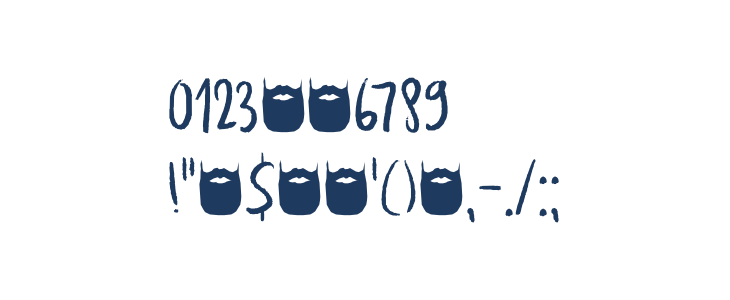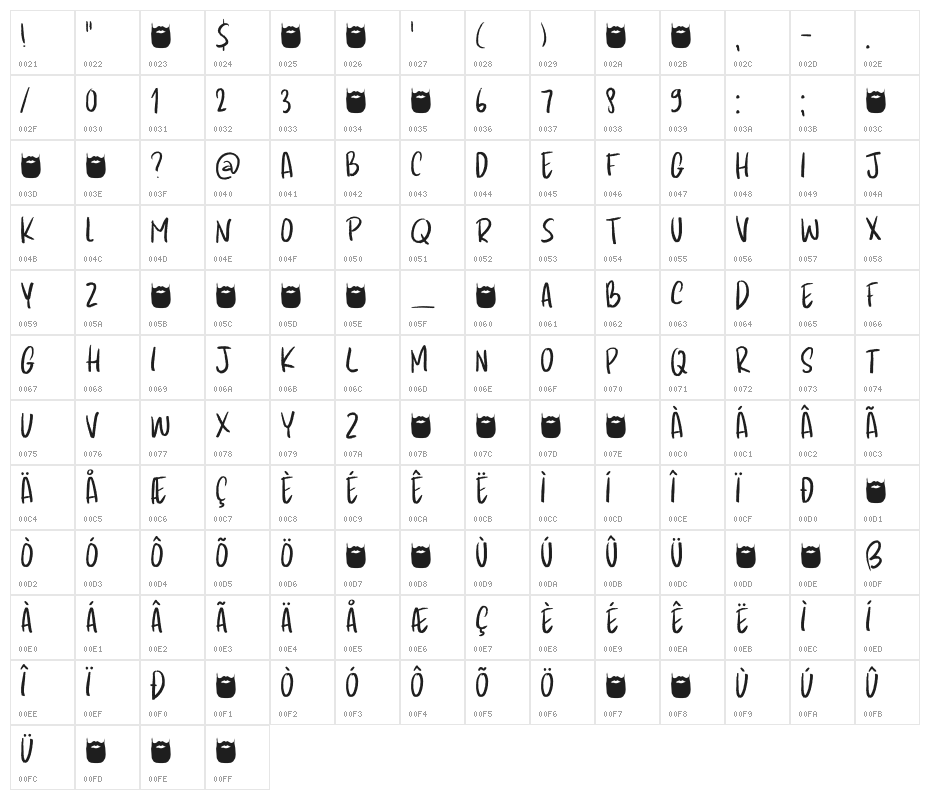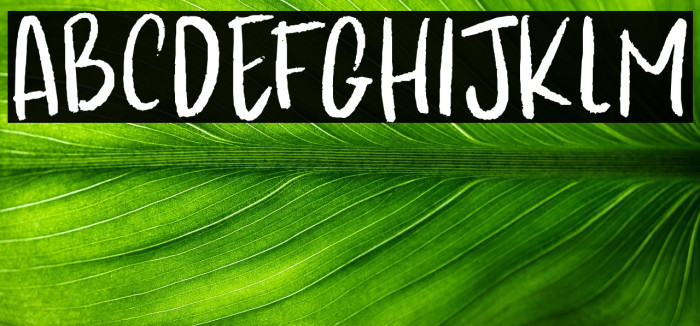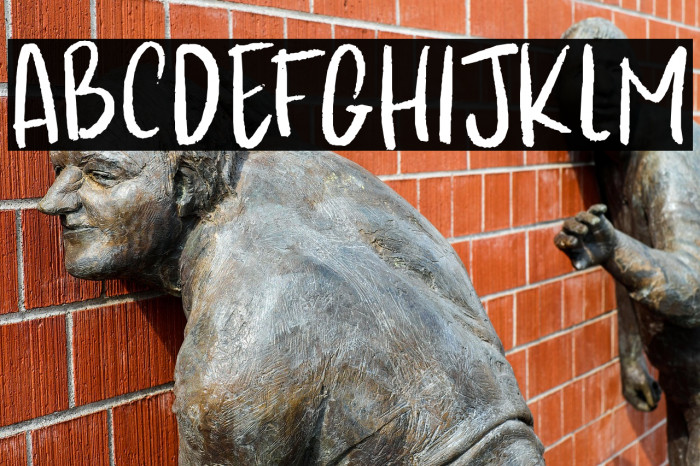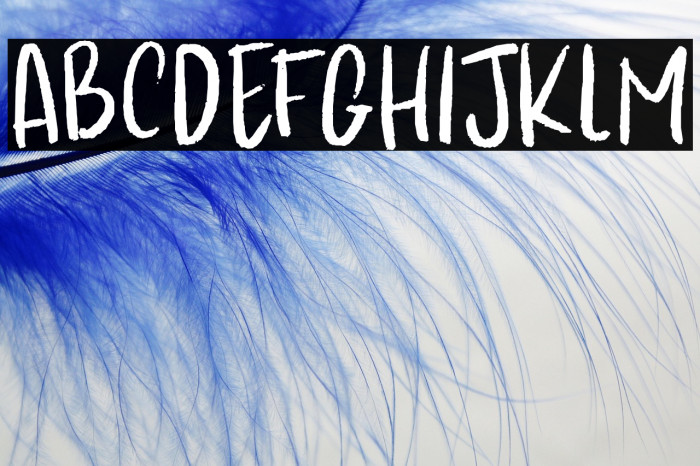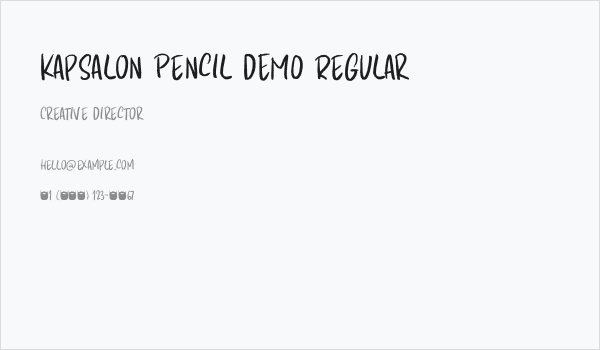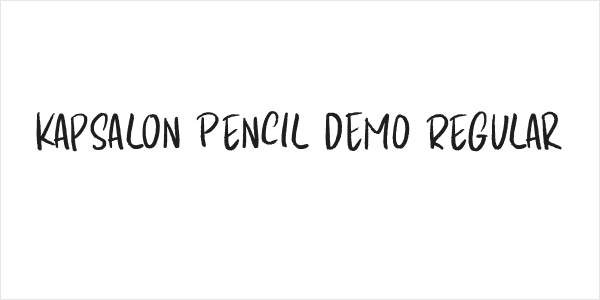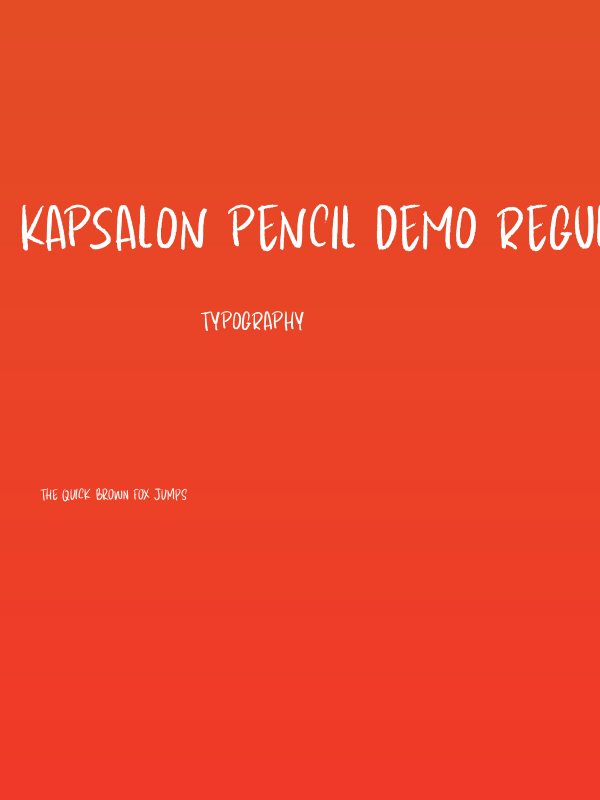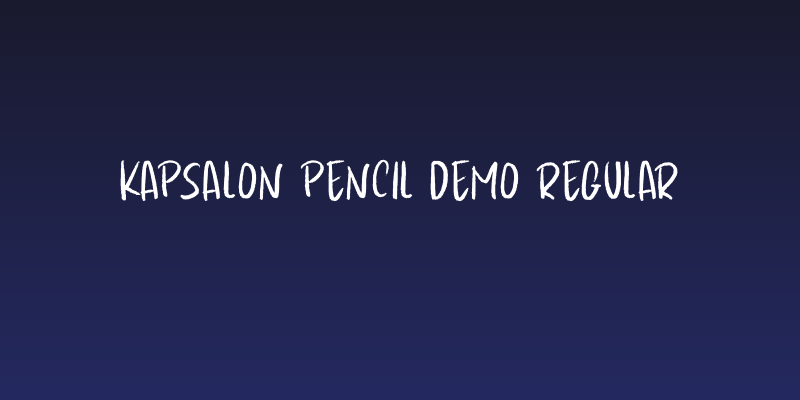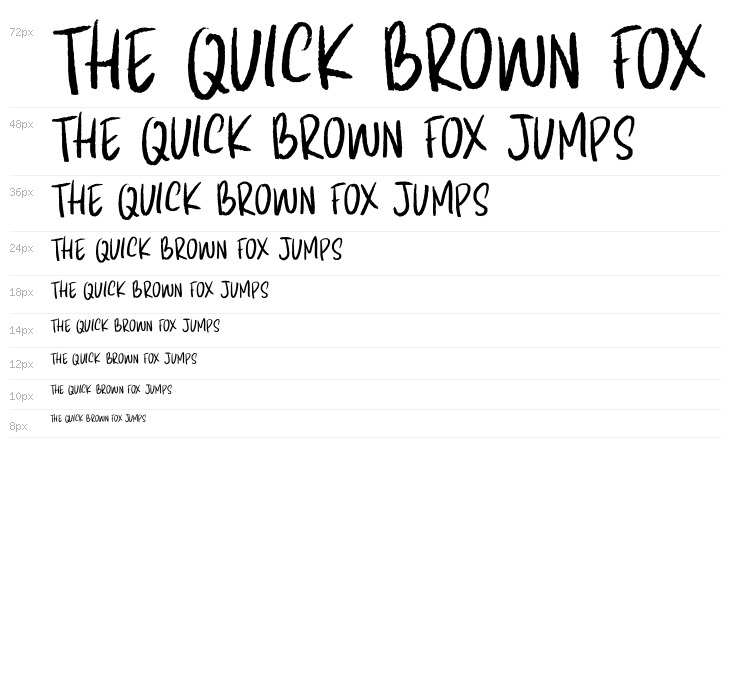
Kapsalon Pencil DEMO Regular Font
Kapsalon Pencil DEMO Regular Description
This font features a playful, handwritten style with a casual and artistic flair. The letters are slightly irregular, giving them a dynamic and lively appearance. The strokes are bold and expressive, with a brush-like texture that adds a sense of movement and energy. The uppercase and lowercase letters maintain a consistent style, while the numbers and special characters integrate seamlessly with the overall design. The font's unique character is further emphasized by the inclusion of beard-themed glyphs, adding a whimsical touch. This font is perfect for projects that require a personal, informal, and creative feel.
| Proposed Projects | Ideal for greeting cards, posters, branding for creative businesses, and social media graphics. |